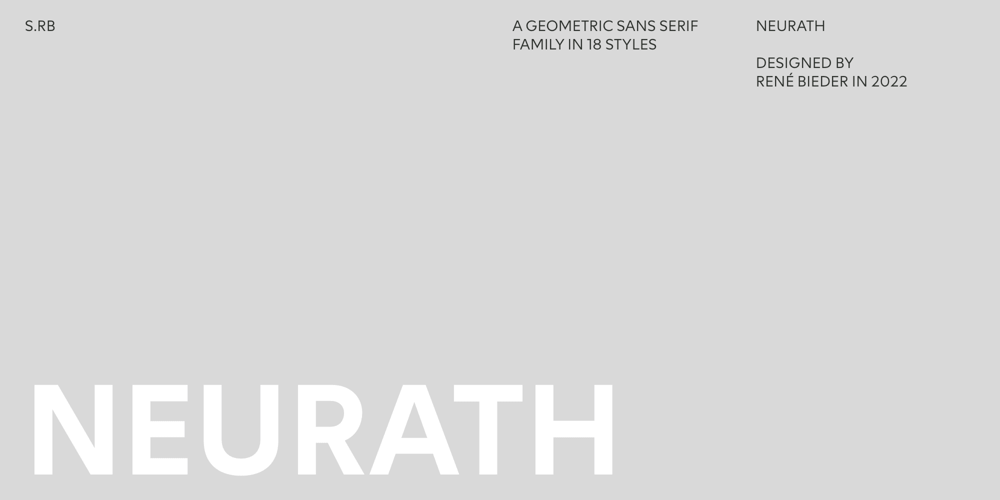
Neurath
Neurath font
Neurath Font Family was designed by René Bieder and published by René Bieder. Neurath contains 18 styles and family package options. Neurath, a contemporary interpretation of Paul Renner’s iconic Futura from 1927, breathes new life into the typographic landscape. While Futura embraces geometric precision, Neurath takes a different path, emphasizing the inherent humanity of letterforms. Through meticulous refinement, varying terminals are harmoniously unified, seamlessly bridging the gap between traditional aesthetics and modern sensibilities. The integration of numerous OpenType features adds an extra layer of versatility, transforming Neurath into a powerful and adaptable tool suitable for everyday typographic expression.With its impressive range of 18 meticulously crafted styles, the Neurath family stands ready to fulfill any typographical purpose. From elegant headlines to legible body text, from digital interfaces to print materials, Neurath effortlessly adapts to diverse design contexts. Its thoughtful design ensures optimal legibility, while subtle nuances and details inject a touch of personality into every letterform.